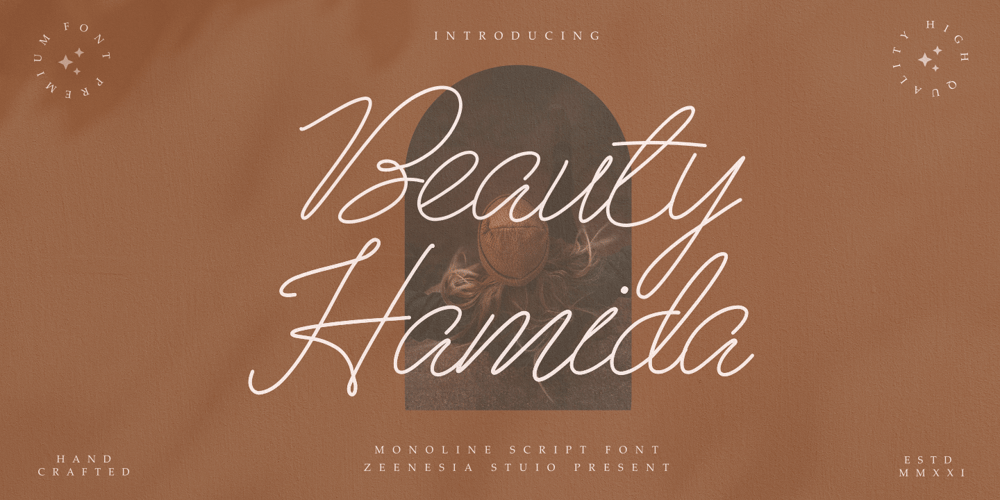
Beauty Hamida Font Family was designed by Zeenesia Studio and published by Zeenesia Studio. Beauty Hamida contains 1 styles and family package options. Introducing Beauty Hamida.Beauty Hamida is a monoline script font with handwritten signature Style. This collection of scripts is perfect for personal branding. this works well for many applications.Beauty Hamida would perfect for photography, watermark, social media posts, advertisements, logos & branding, invitation, product designs, label, stationery, wedding designs, product packaging, special events, fashion, website or anything that need handwriting taste.What’s Included :- Standard glyphs- Multilingual- Web Font- Works on PC & Mac Simple installationsAccessible in the Adobe Illustrator, Adobe Photoshop, Adobe InDesign, even work on Microsoft Word. PUA Encoded Characters – Fully accessible without additional design software. Fonts include multilingual support Image used : All photographs/pictures/vector used in the preview are not included, they are intended for illustration purpose only.Cheers!Thank You